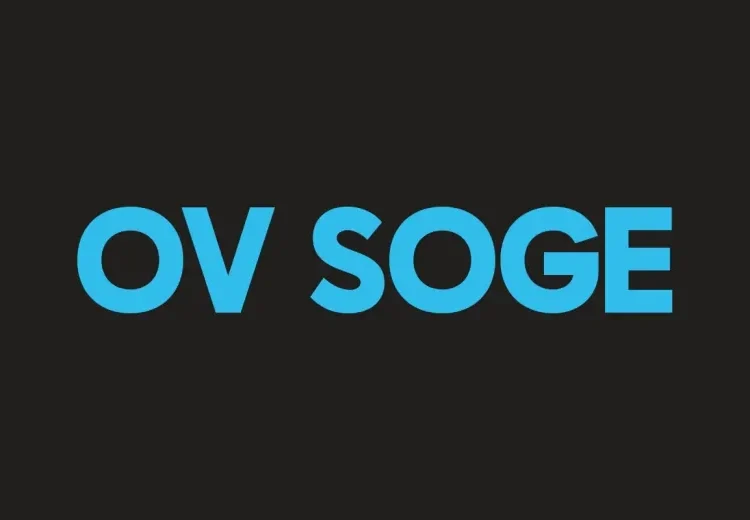
OV Soge Font Family
OV Soge is a versatile new sans-serif font family renowned for its modern and clean design, making it an ideal choice for a range of professional design projects. Its contemporary aesthetic and crisp lines ensure a polished look that enhances any design, from sleek online sites and impactful branding materials to effective marketing campaigns. OV Soge stands out for its multilingual compatibility, allowing you to engage a global audience with ease and precision.
Whether you’re working on website design, corporate branding, or marketing collateral, OV Soge provides a sophisticated and adaptable typographic solution. Its design versatility ensures it can seamlessly integrate into various contexts, providing a fresh and professional appearance that elevates your work. This font family is an essential addition to any designer’s toolkit, offering both style and functionality.